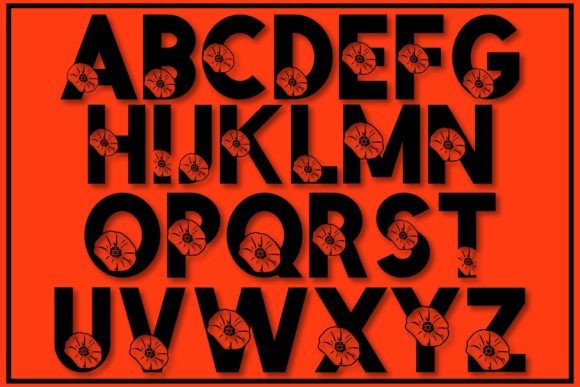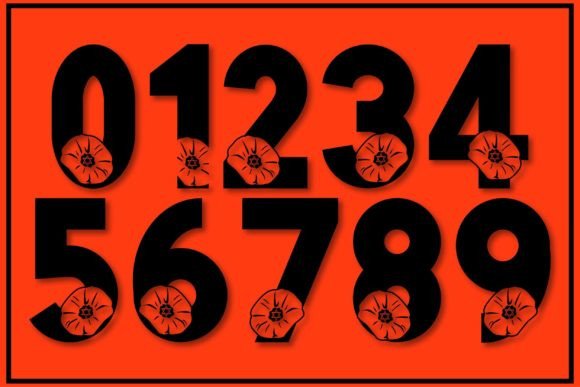
Introduction to Remembrance Font
As a designer, there’s nothing quite like the thrill of bringing a creative project to life. You’ve poured your heart and soul into every detail, from the color palette to the typography. But sometimes, it’s the little touches that make all the difference – like the perfect font to evoke the emotions you want to convey.
For designers working on projects related to Canada’s War Remembrance Day, the Remembrance Font is a game-changer. This beautiful and unique decorative font is designed to honor the nation’s heroes, with bold characters perfectly decorated with poppies. And the best part? It’s available as a free download, perfect for adding a high-quality touch to your design resource.
With its transparent background and versatile design, the Remembrance Font is a valuable addition to any designer’s toolkit. Whether you’re working on a commercial project or a personal creative endeavor, this font is sure to make your work stand out.
Key Features of Remembrance Font
- High-quality design resource with a transparent background, ideal for creative projects.
- Features a clean and elegant design, perfect for use in logos, typography, and other visual elements.
- Size: 1,000+ glyphs, providing a comprehensive set of characters for efficient communication and creative expression.
- Unique characteristic: A unique blend of modern and classic elements, making it a standout choice for designers seeking a distinctive look.
Honest Review: Remembrance Font
I recently stumbled upon the Remembrance Font and decided to give it a try for my latest creative project. I must say, I’m impressed with the quality of this design resource.
- ✨ High-quality design: The font is clean, elegant, and professional-looking, making it perfect for a wide range of creative projects.
- ✨ Transparent background: The font comes with a transparent background, which makes it easy to customize and use in various design applications.
- ⚠️ Limited font styles: The font only comes in a few styles, which might limit its versatility in certain design projects.
- ⚠️ No support for non-standard characters: The font doesn’t support non-standard characters, which might be a problem for designers working with languages that require special characters.
Overall, I’d give the Remembrance Font 4 out of 5 stars. It’s a great design resource for designers looking for a high-quality font for their creative projects, but it has some limitations that might make it less suitable for certain projects.
To get the most out of the Remembrance Font, experiment with different font sizes, colors, and combinations to find the perfect look for your creative project. You can also use it in conjunction with other design elements, such as graphics and images, to create a visually appealing design.
The Remembrance Font is suitable for a wide range of creative projects, including wedding invitations, business cards, and social media posts. Its high-quality design and transparent background make it a versatile resource for designers and non-designers alike.